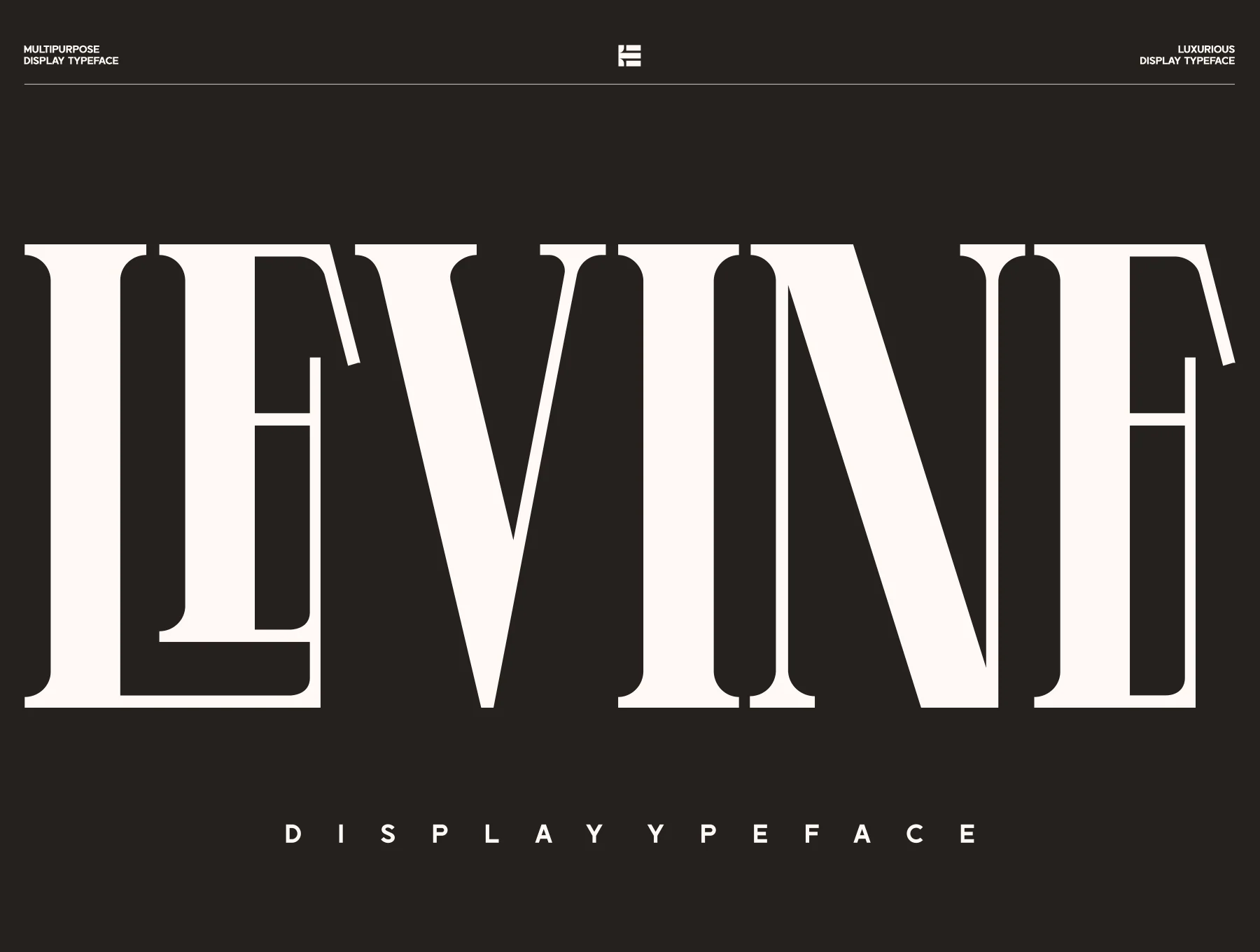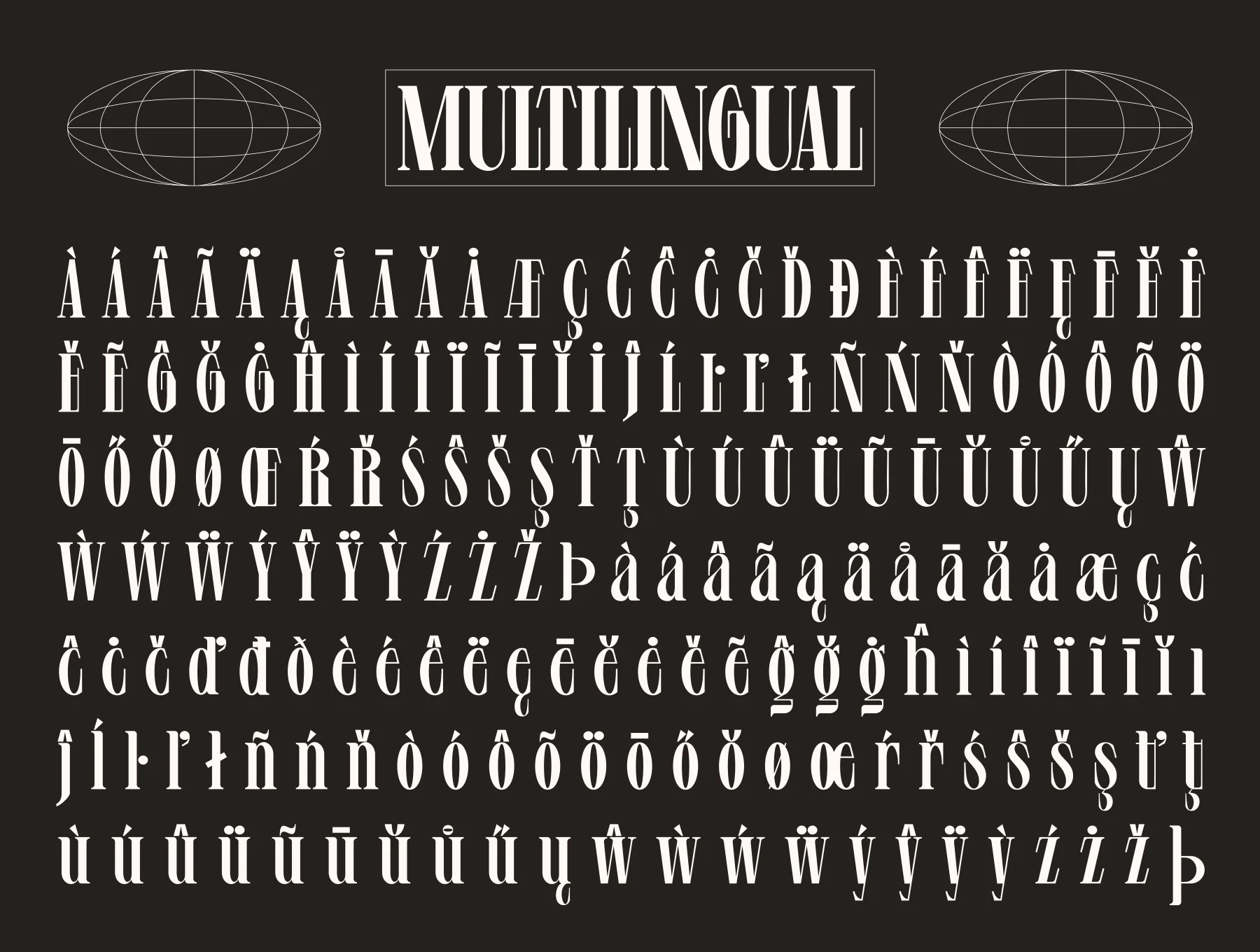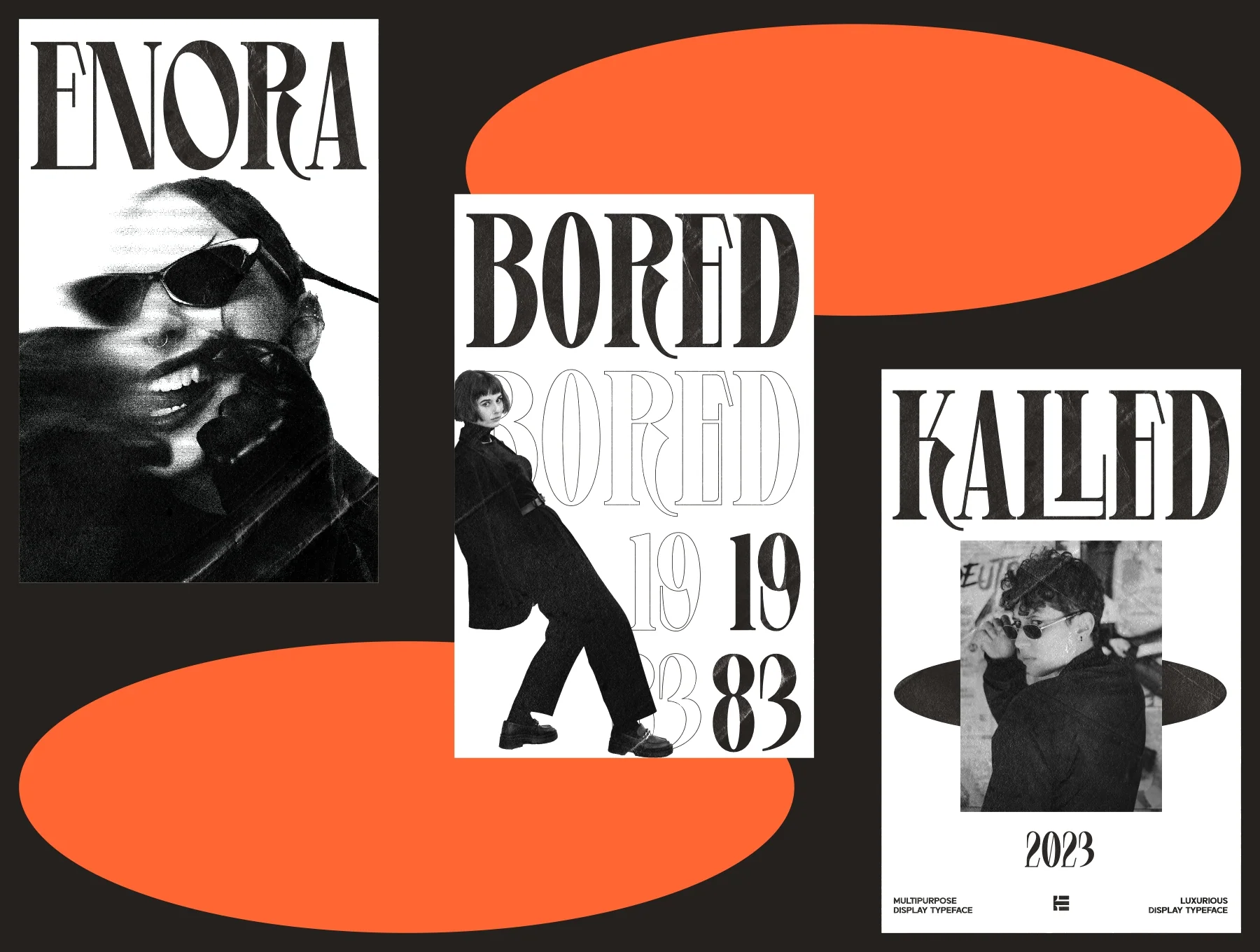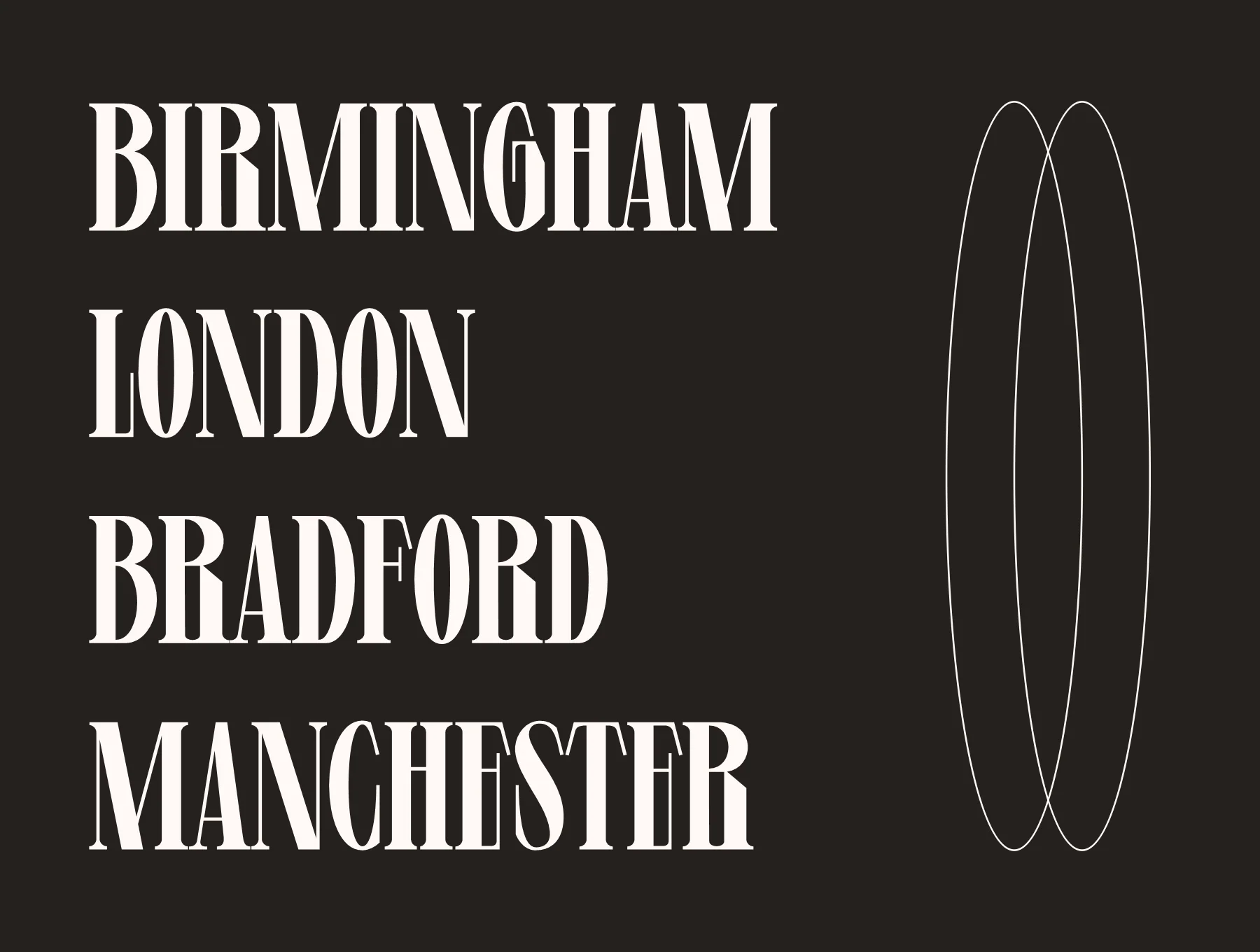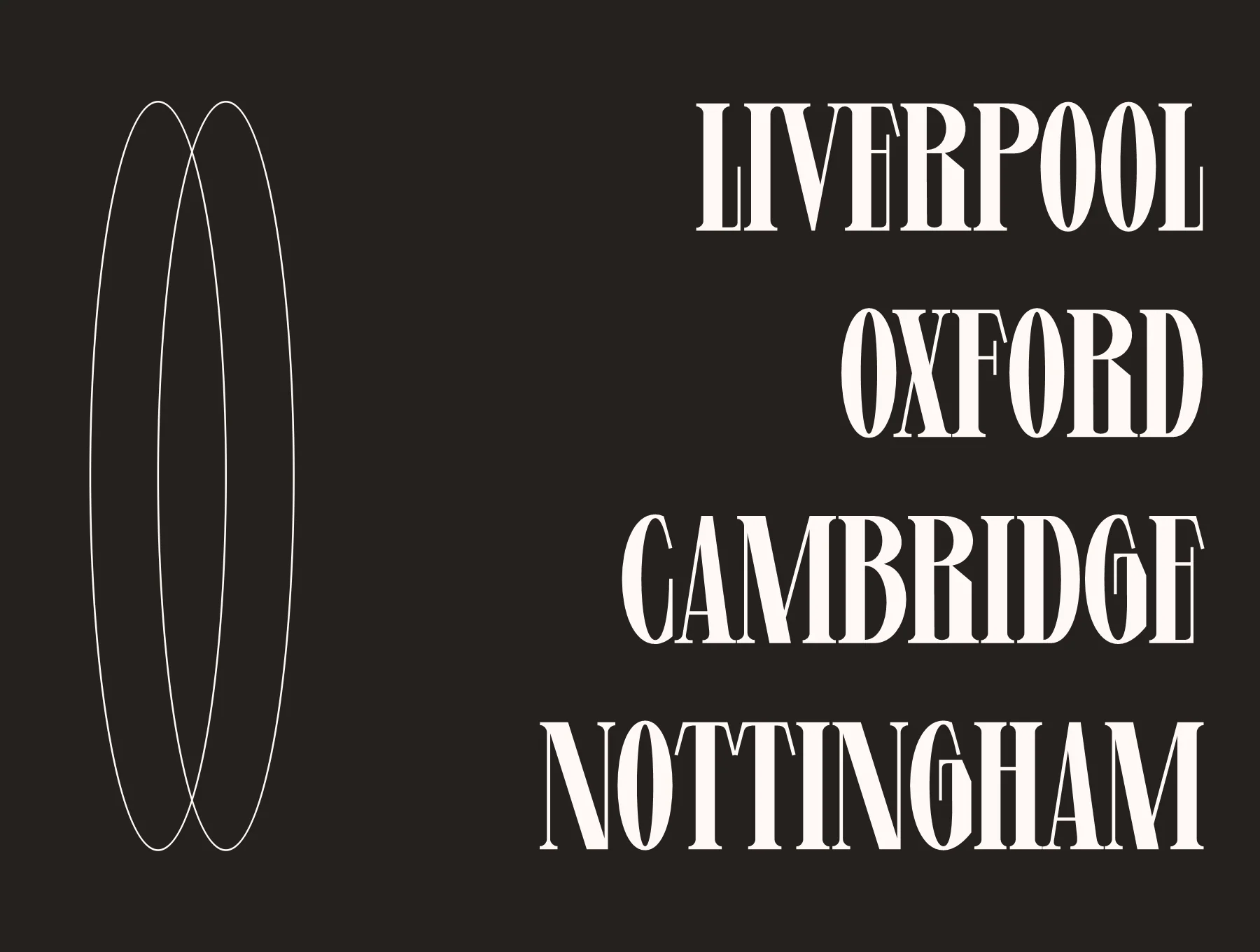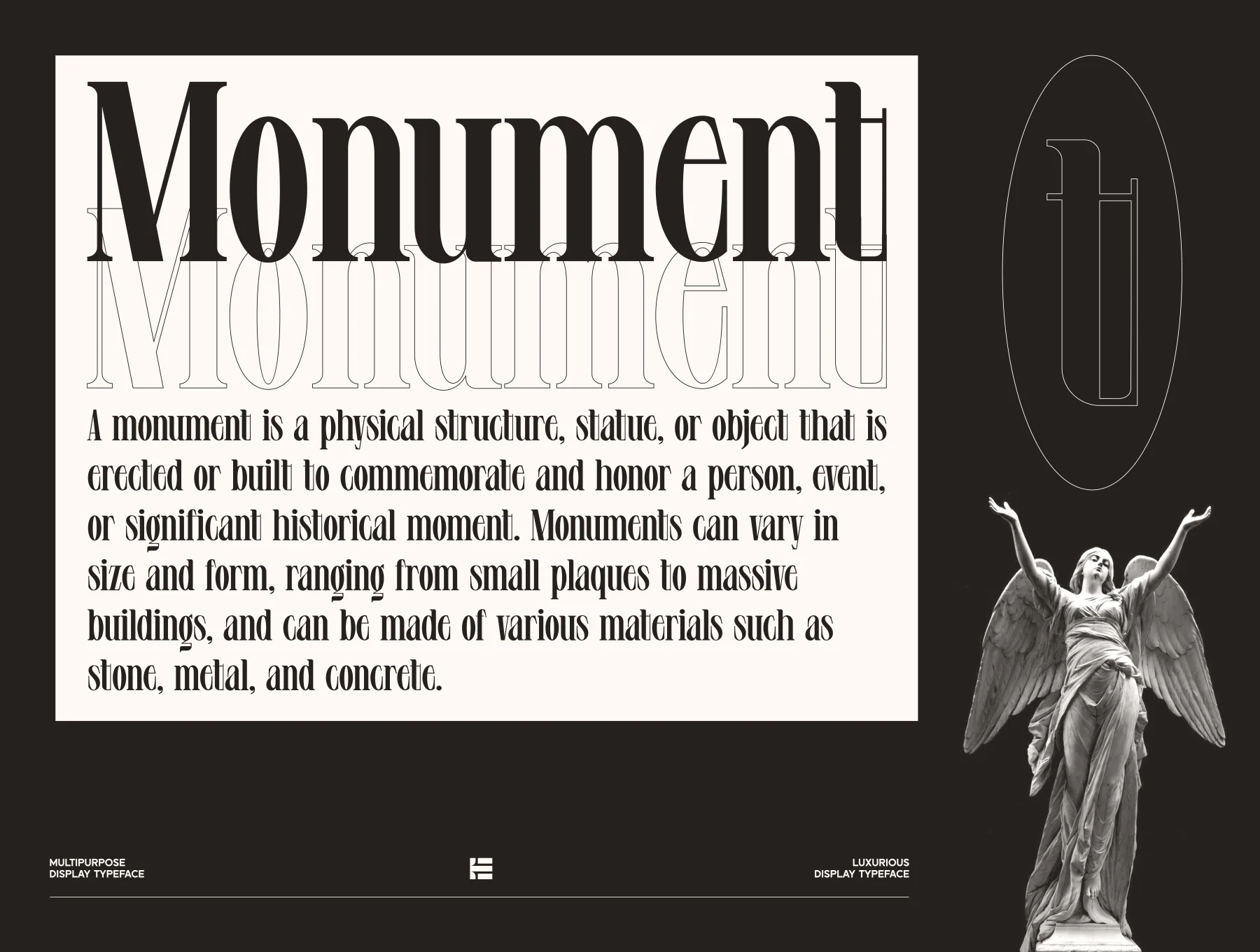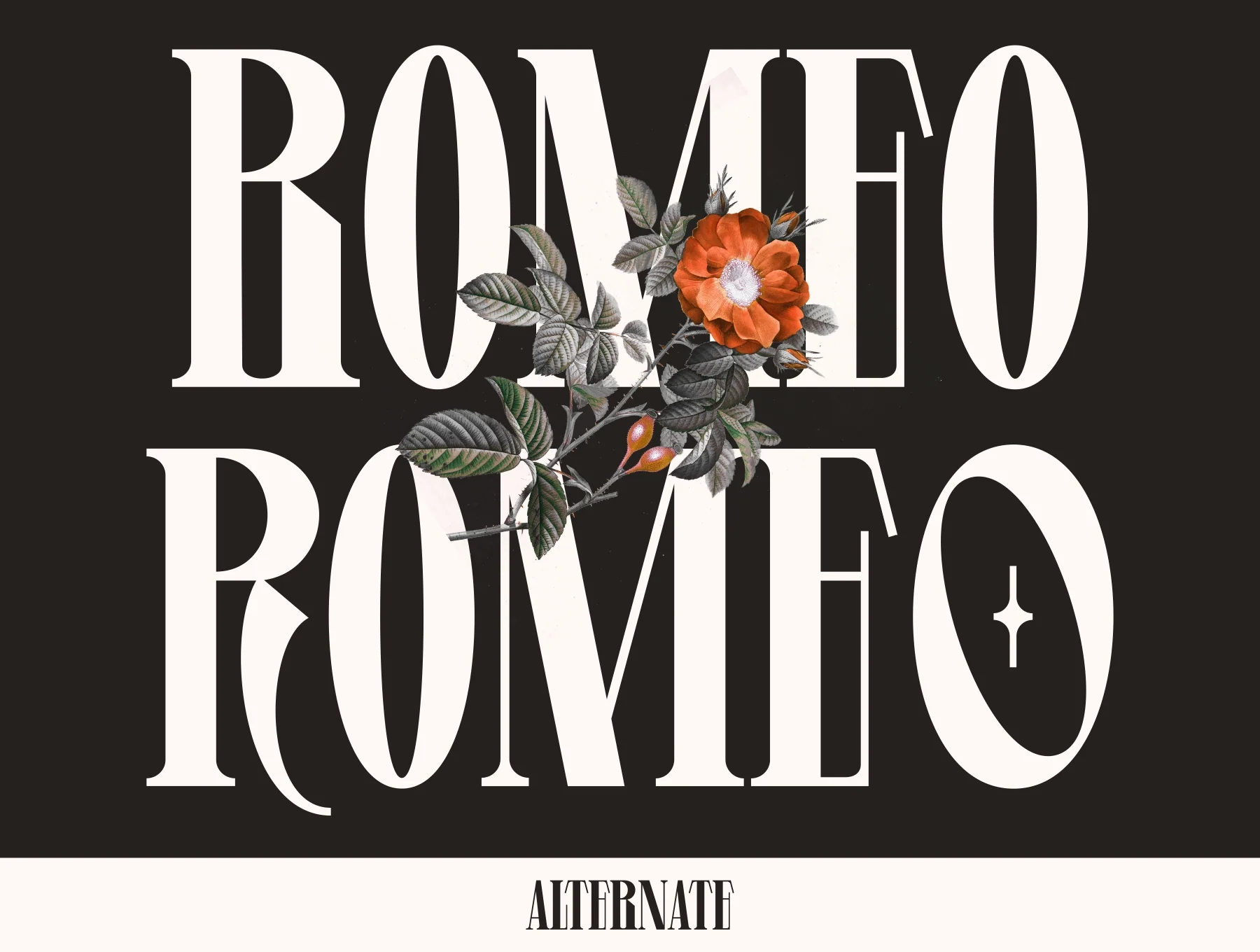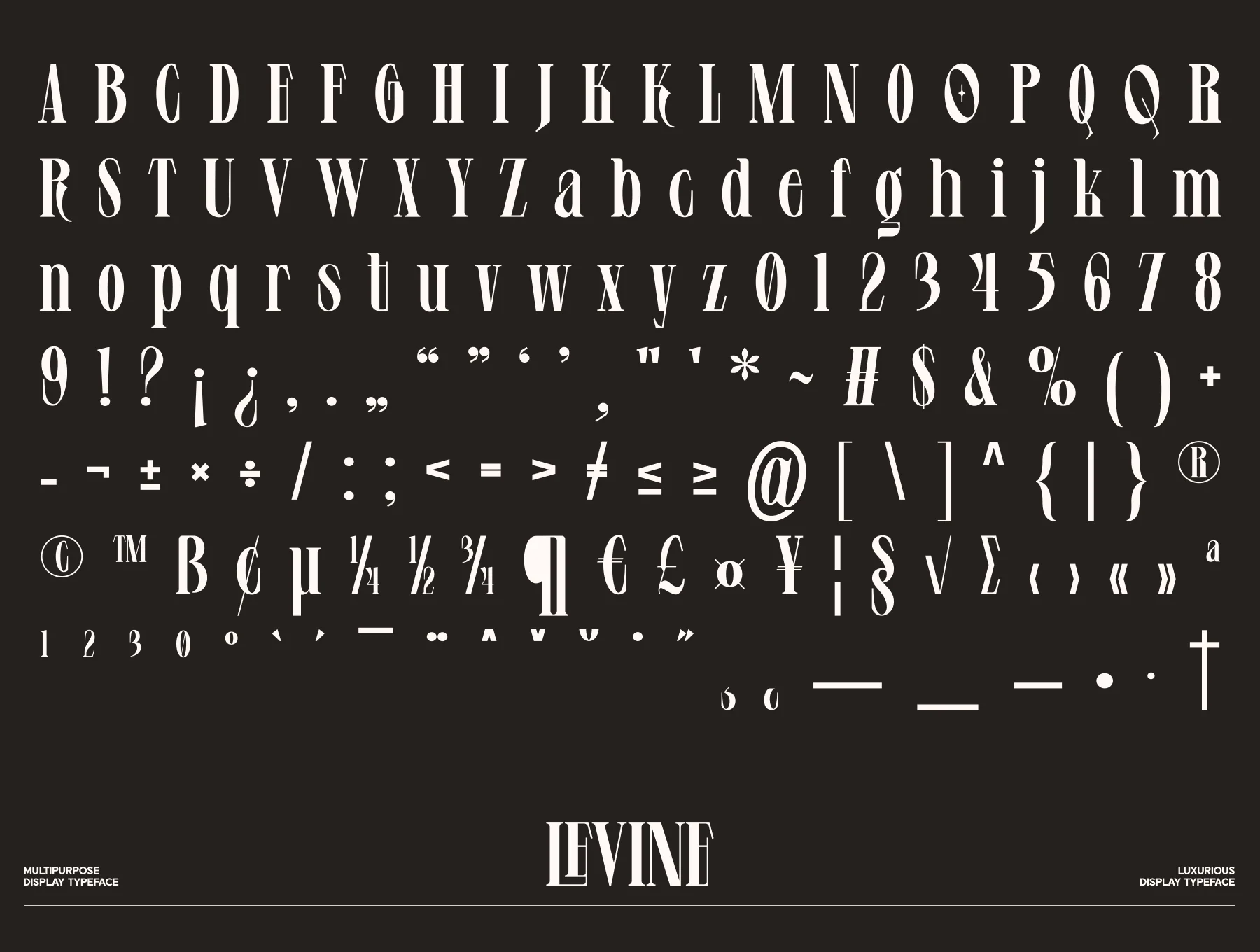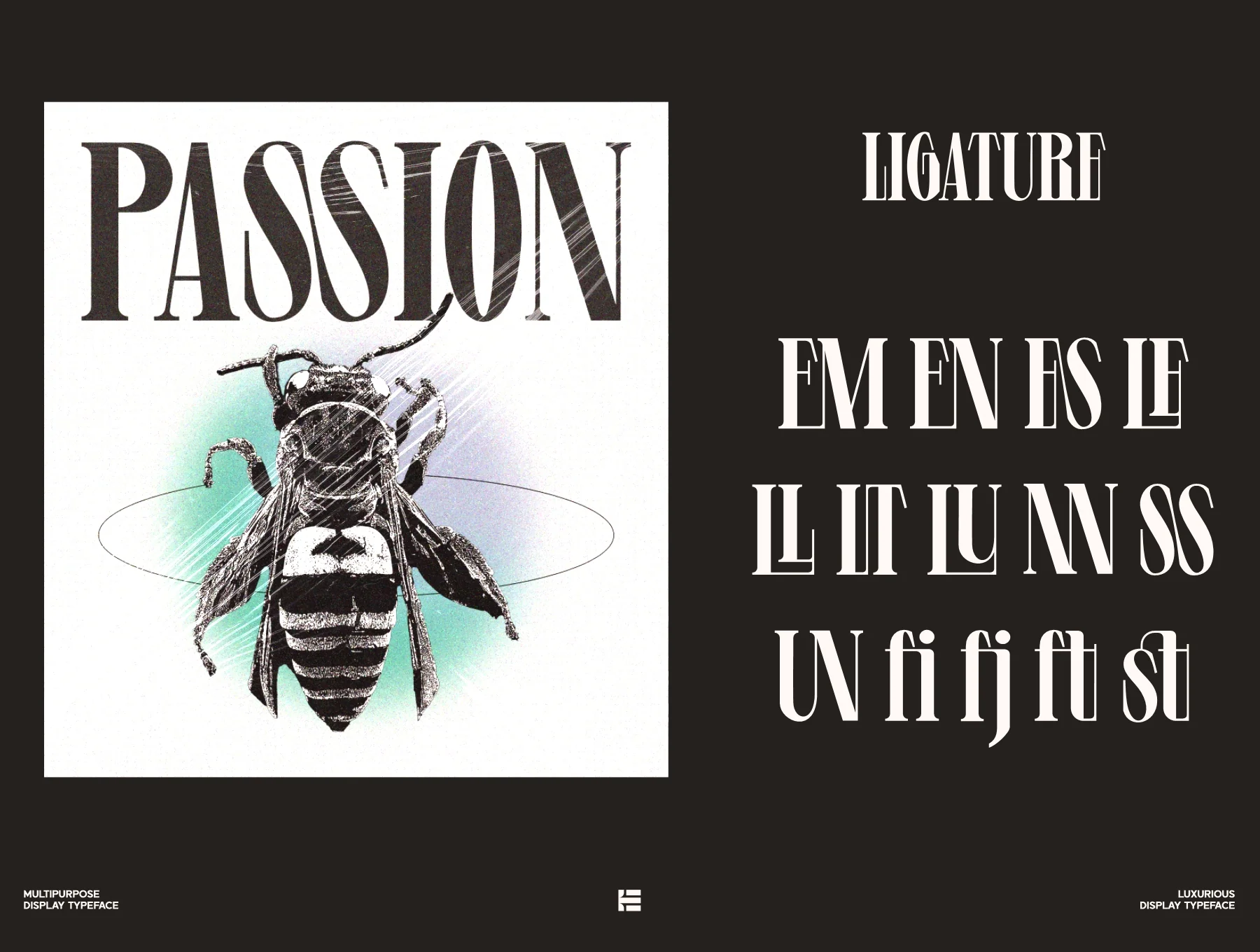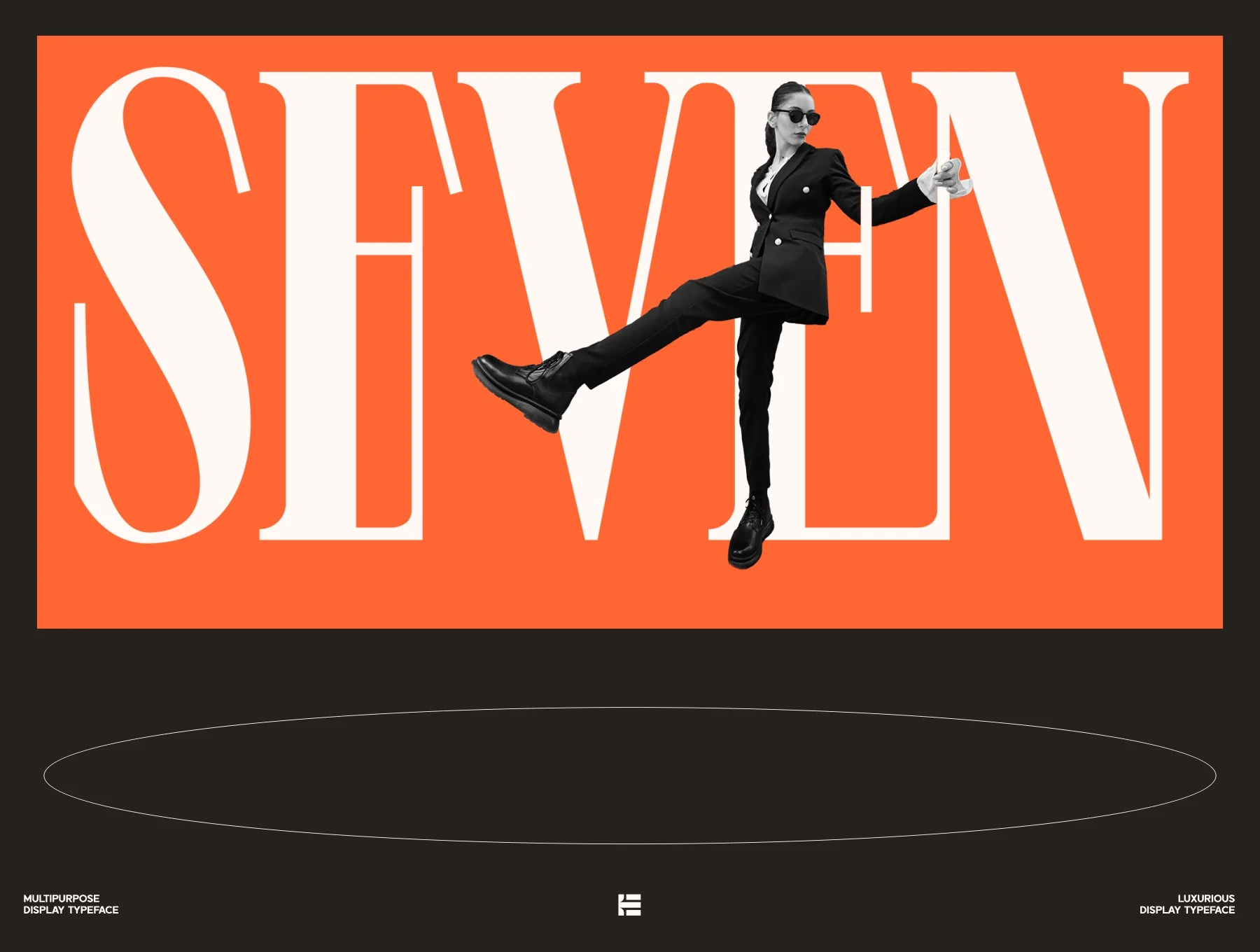
Levine - Display Font
Levine
Levine is a fresh condensed font with elegant, luxurious character. Its distinctive style suits refined logos, striking magazine layouts, and other premium designs. With a range of alternates and ligatures, it helps complete creative projects with polished detail.